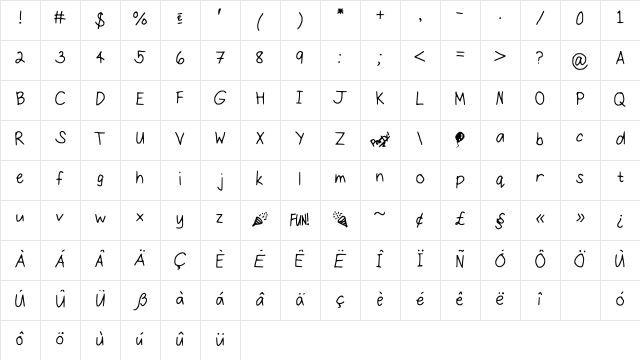
ConfettiFalling Medium
Design Context for ConfettiFalling
ConfettiFalling is a composed and adaptable typeface that performs quietly and consistently across a wide range of design contexts.
Pro Tip: Use ConfettiFalling in both headline and body roles to test its range before committing to a single application.